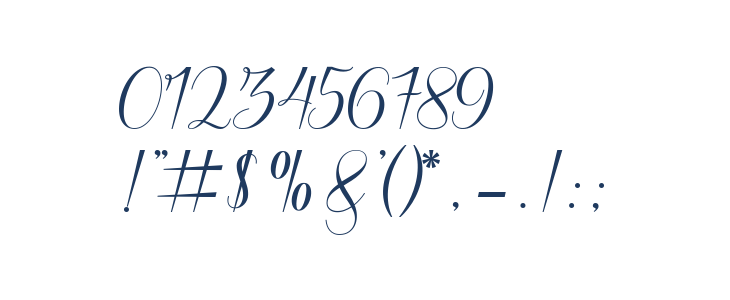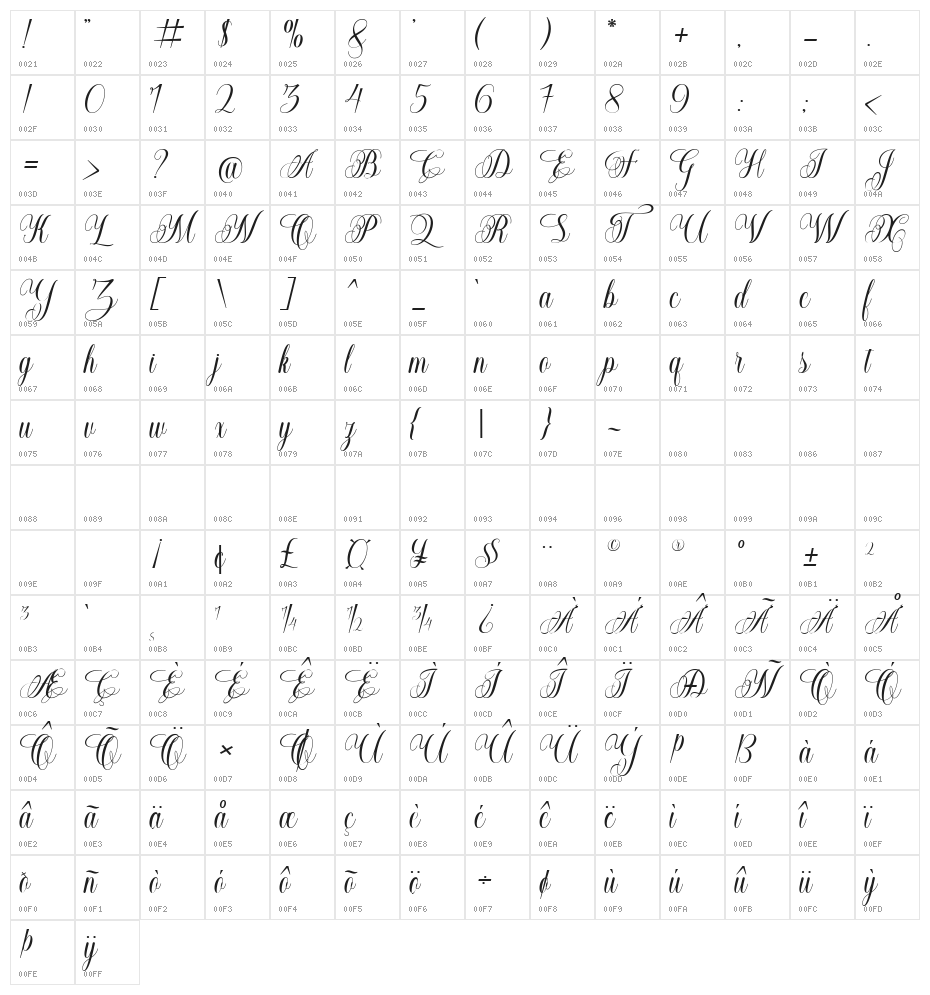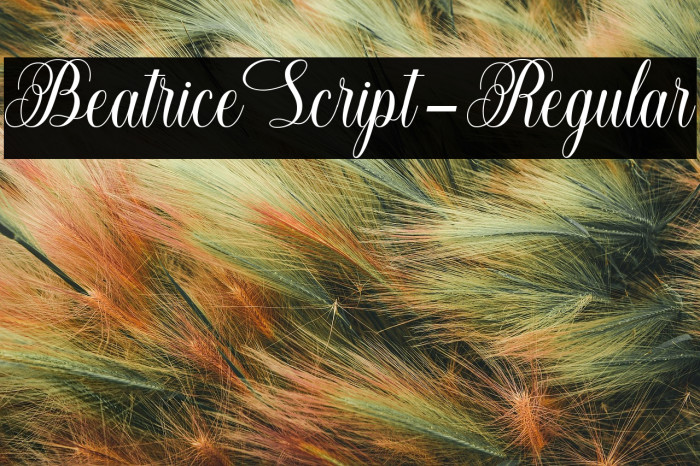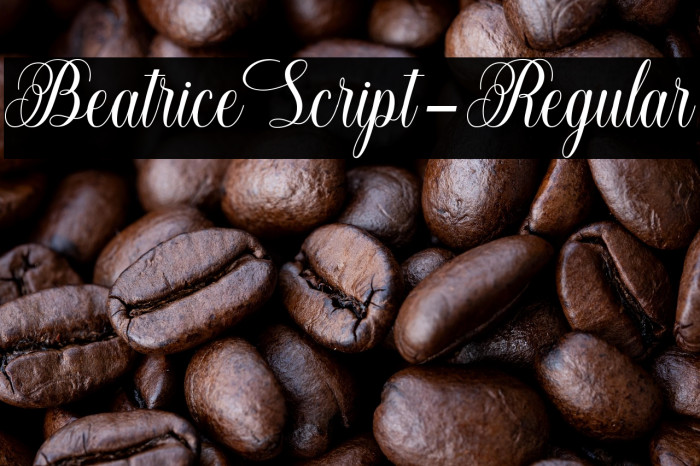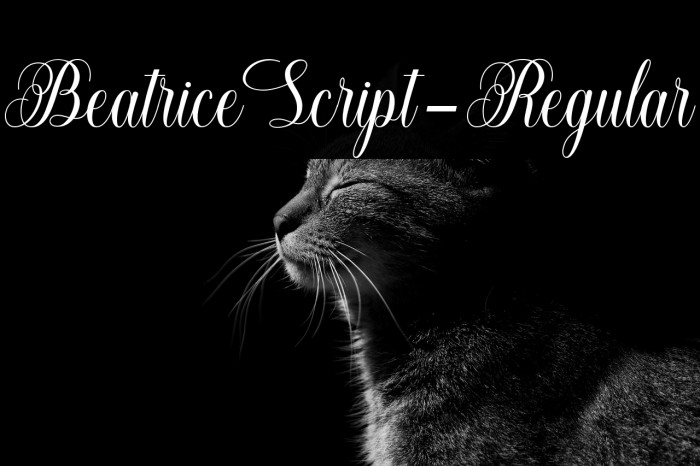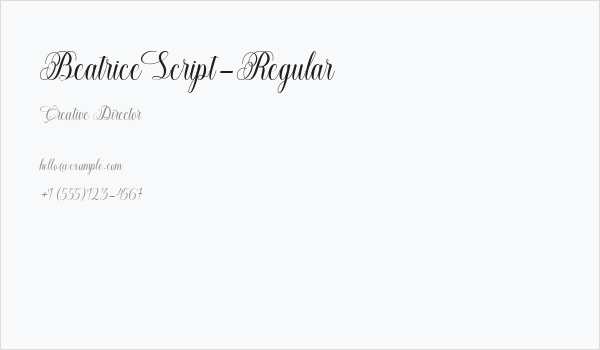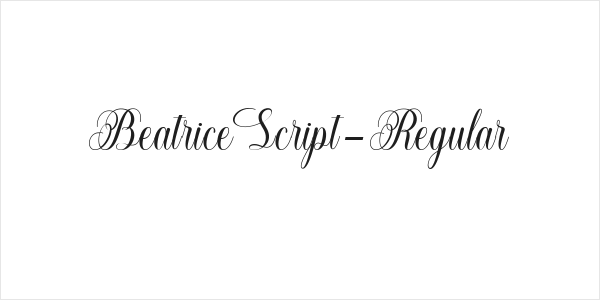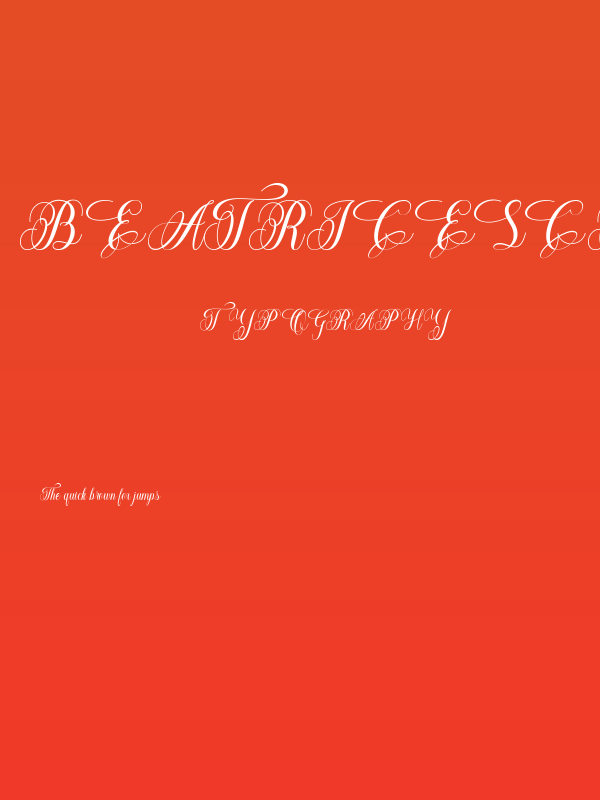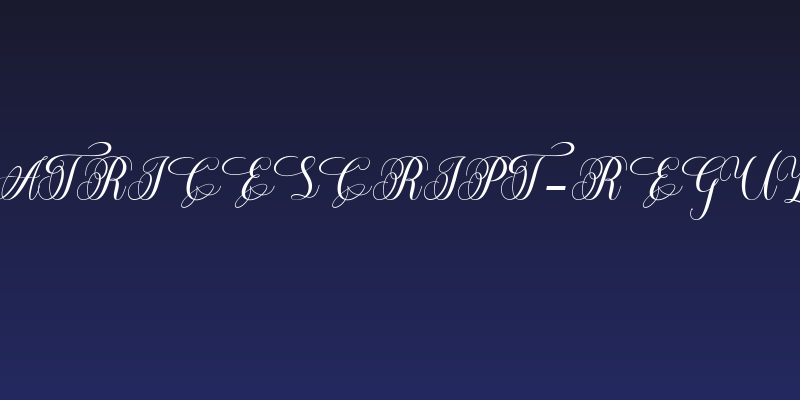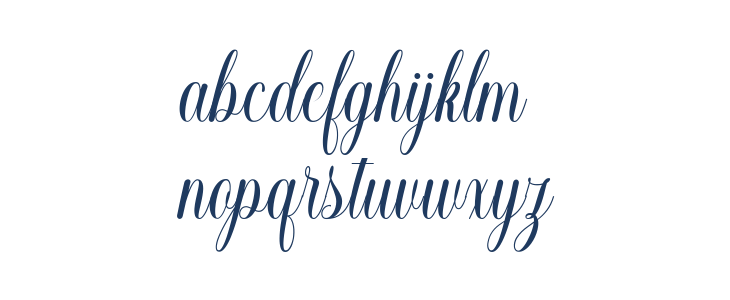
BeatriceScript-Regular Font
BeatriceScript-Regular Description
This elegant script font features a flowing, cursive style with intricate loops and flourishes. The uppercase letters are particularly ornate, with each character displaying unique swirls that add a touch of sophistication. The lowercase letters maintain a consistent slant, offering a smooth and connected appearance that enhances readability. The numerals are designed with a similar flair, incorporating subtle curves that align with the overall aesthetic. Special characters are thoughtfully crafted to match the font's decorative nature, making it suitable for formal invitations, branding, and artistic projects.
| Use Case | Logos, Invitations, Artistic projects |
| Proposed Projects | Ideal for wedding invitations, luxury branding, greeting cards, and artistic designs. |